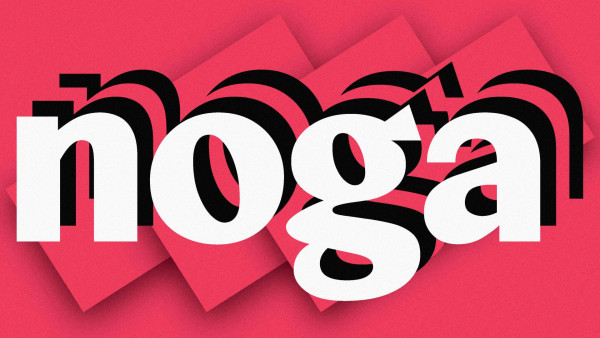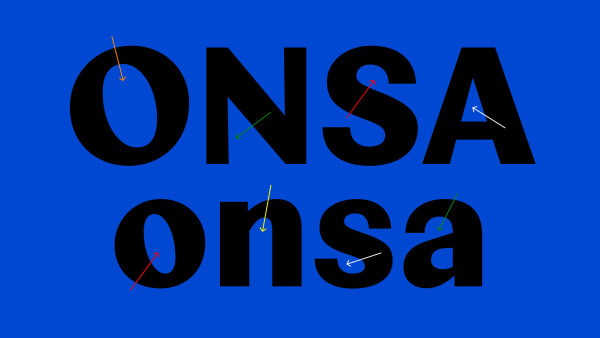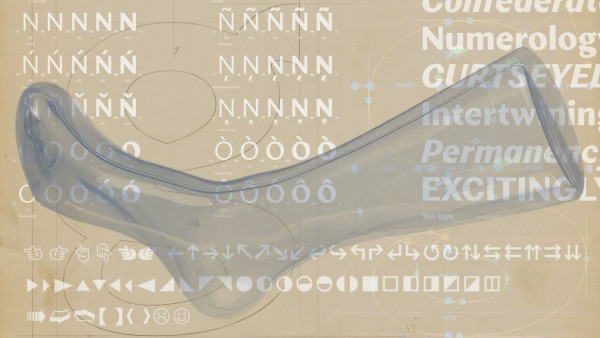
Noga Font
Noga Font is a geometric-humanist typeface family that’s all about taking unexpected turns when it comes to contrast flow. Letters are shaped by common sense and sensibility for the adequacy of things. It is an attempt at forging a contemporary typeface that has a recognizable and formidable personality in bigger sizes — while its energetic stroke modulation maintains a distinguished form amidst longer texts.